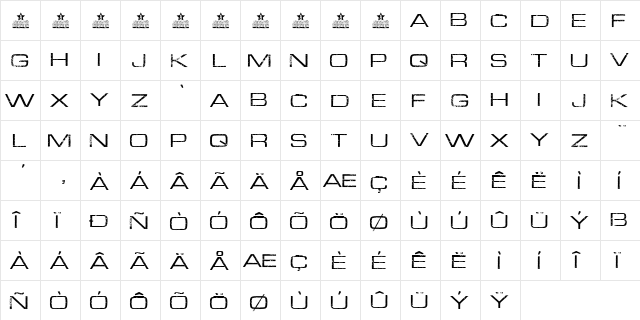
AURORA Regular
| Foundry | Billy Argel |
| Designer | Billy Argel |
Design Context for AURORA Typeface
AURORA offers clean, dependable letterforms without strong stylistic allegiance, making it a practical choice for designers who need flexibility.